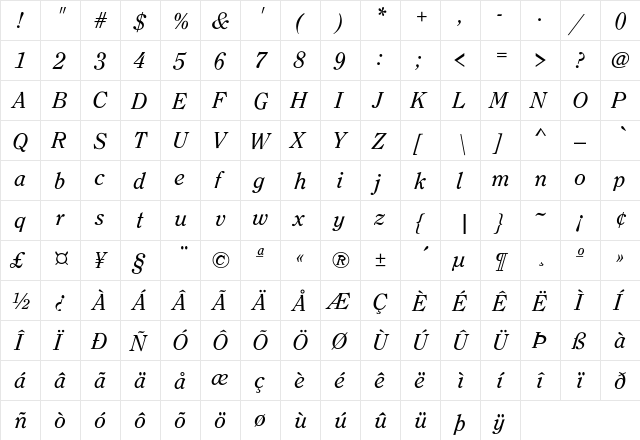
Baxterly Regular Font Preview
Baxterly Regular
Baxterly Regular Font Details
Design Context for Baxterly Typeface
Baxterly is a composed and adaptable typeface that performs quietly and consistently across a wide range of design contexts.